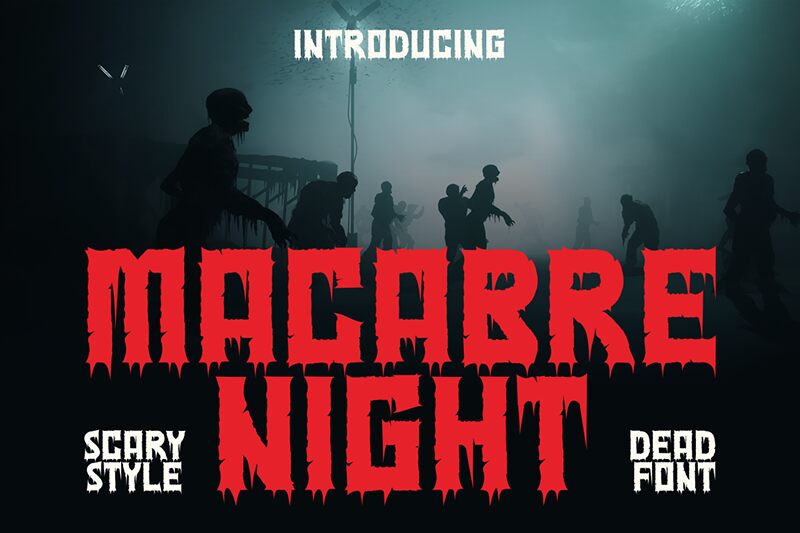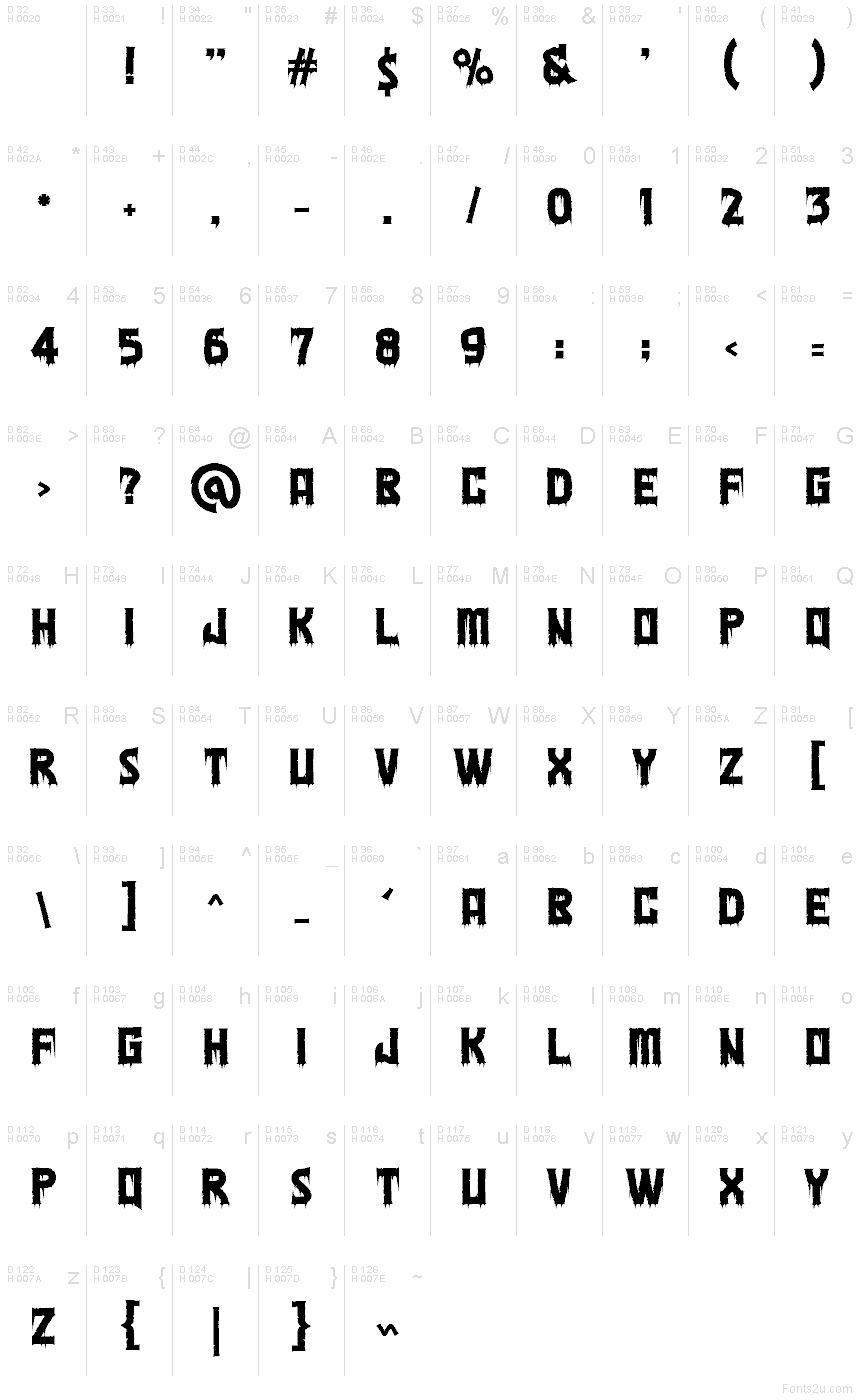
Macabre Night
Macabre Night font by Gilang Ternadho is a free Halloween display font. Thick, inky letters hang with stalactite-like drips and ragged edges, as if the type was pulled from a damp crypt. The texture reads loud and immediate, with chunky silhouettes that stay legible even as the forms melt and fray at the bottom.
Using Macabre Night, you can give instant bite to haunted house flyers, party posters, horror thumbnails, trick-or-treat bags, escape room branding, game splash screens, and spooky social posts. This free font thrives at big sizes where the drips can breathe; pair it with a clean sans for details and keep the tracking slightly tight to intensify the ooze.